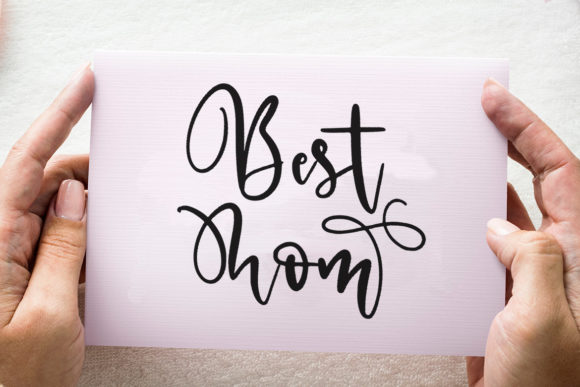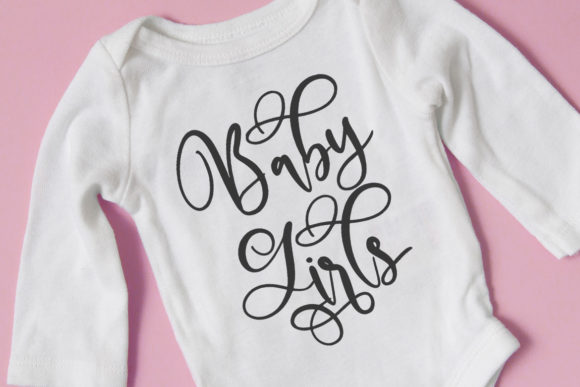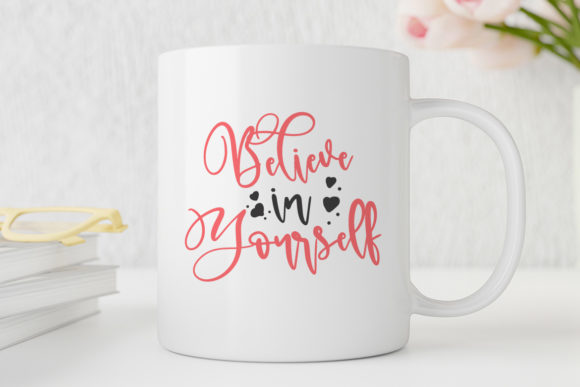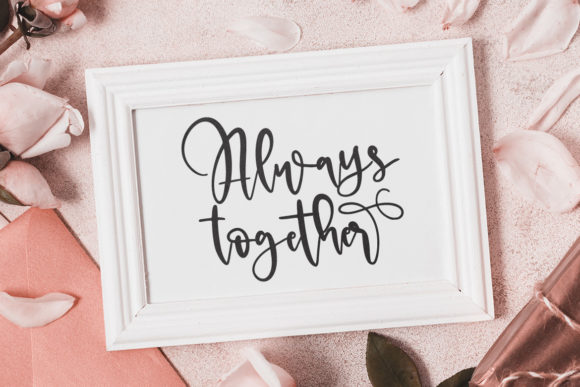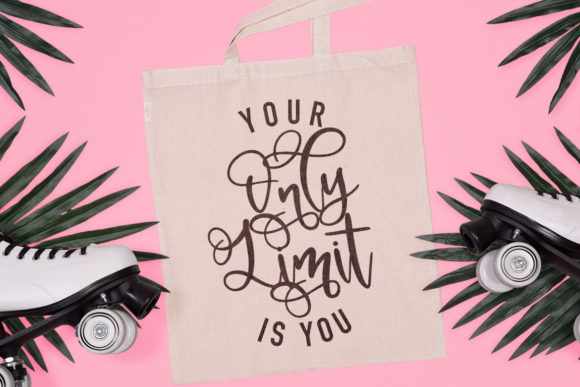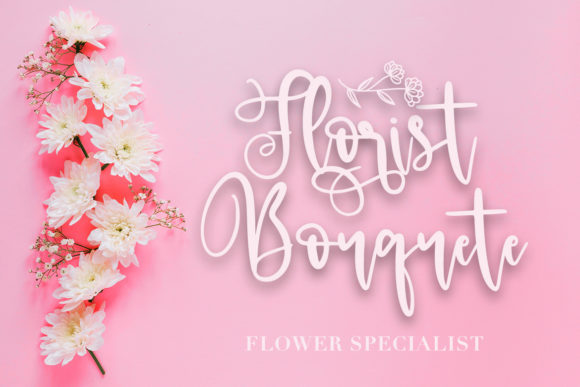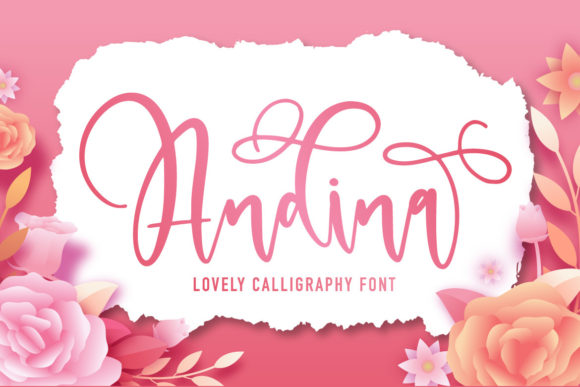
Discover the Elegance of Andina Font: A Perfect Choice for Designers and Crafters
Are you a designer or crafter looking for a font that exudes charm and elegance? Look no further than the Andina Font. This beautiful, handwritten font is perfect for adding a touch of sophistication to any design project. In this article, we’ll explore the features and benefits of Andina Font, and why it’s a must-have for any creative looking to elevate their work.
The Charm of Andina Font
Andina Font is a stunning script font that feels equally charming and elegant. Its unique, hand-crafted design makes it perfect for a variety of projects, from wedding invitations and thank you cards to quotes, greeting cards, logos, and business cards. The font’s elegant strokes and beautiful swashes add a touch of sophistication to any design, making it ideal for crafters and designers who want to create something truly special.
Key Features of Andina Font
So, what makes Andina Font so special? Here are just a few of its key features:
- PUA Encoded: Andina Font is PUA encoded, which means you can access all of the glyphs and swashes with ease. This makes it simple to customize your designs and add your own personal touch.
- Handwritten Touch: Andina Font has a beautiful, handwritten feel that’s perfect for adding a personal touch to your designs.
- Elegant and Charming: The font’s elegant strokes and beautiful swashes make it perfect for creating sophisticated and charming designs.
- Versatile: Andina Font is versatile and can be used for a variety of projects, from wedding invitations and greeting cards to logos and business cards.
Why Designers and Crafters Love Andina Font
So, why do designers and crafters love Andina Font? Here are just a few reasons:
- Easy to Use: Andina Font is simple to use, even for those who are new to designing or crafting.
- Customizable: The font’s PUA encoding makes it easy to customize your designs and add your own personal touch.
- High-Quality: Andina Font is a high-quality font that’s designed to produce beautiful results.
- Unique: The font’s unique, hand-crafted design makes it stand out from other fonts, ensuring your designs will be truly one-of-a-kind.
Ideas for Using Andina Font
Andina Font is versatile and can be used for a variety of projects. Here are just a few ideas to get you started:
- Wedding Invitations: Add a touch of elegance to your wedding invitations with Andina Font.
- Greeting Cards: Create beautiful, handmade greeting cards with Andina Font.
- Quotes: Add a touch of sophistication to your quotes with Andina Font.
- Logos: Use Andina Font to create a unique and elegant logo for your business.
- Business Cards: Add a touch of professionalism to your business cards with Andina Font.
| Font Name | Andina Font |
| Author | BaeMary |
In conclusion, Andina Font is a beautiful, elegant font that’s perfect for designers and crafters looking to add a touch of sophistication to their designs. Its unique, hand-crafted design, PUA encoding, and versatility make it a must-have for any creative looking to elevate their work. Whether you’re creating wedding invitations, greeting cards, quotes, logos, or business cards, Andina Font is the perfect choice.